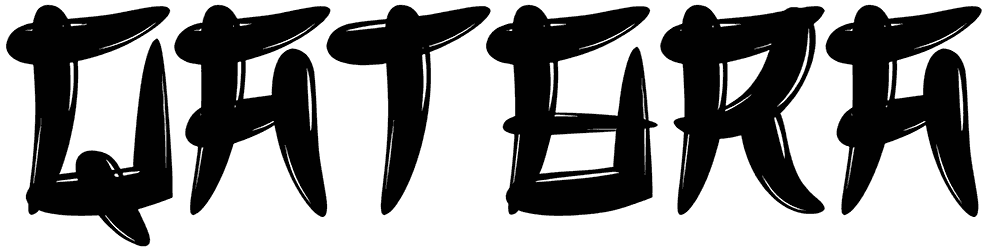
Qatora Font
Your design will have a traditional and memorable visual if you use this Japanese font to adorn its words. The characters are playful and natural, but they don’t support numbers and most punctuation marks. As a ninja font, Qatora font is going to add a powerful and surprising feeling to your festival flyer design.